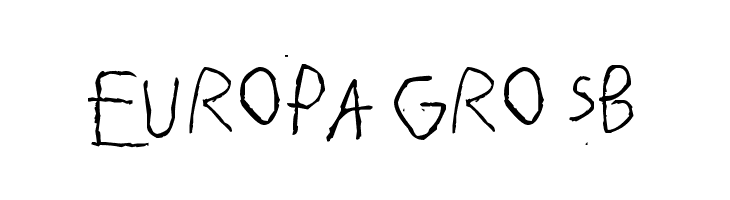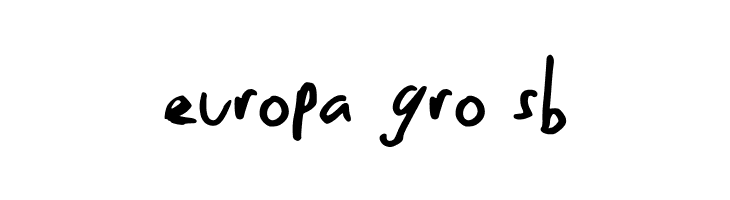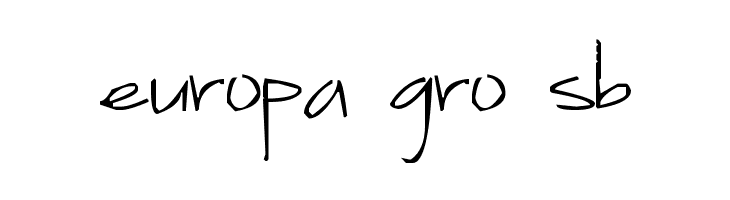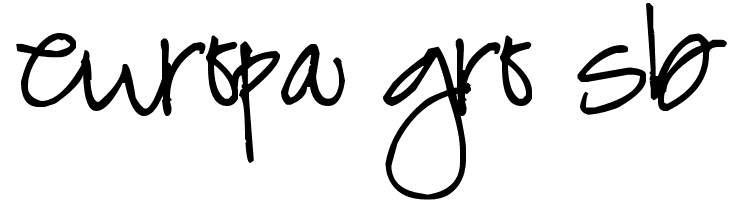
A hand-drawn, sketch-like font with irregular strokes and a casual, artistic vibe.
A casual, handwritten font with fluid, slightly irregular strokes.
A playful, casual handwritten font with irregular strokes and a whimsical style.
A playful, casual handwritten font with an informal and organic style.
A casual, playful handwritten font with flowing strokes and a relaxed style.
A playful, handwritten font with bold, expressive strokes and a casual style.
A playful, casual handwritten font with free-flowing strokes and uneven spacing.